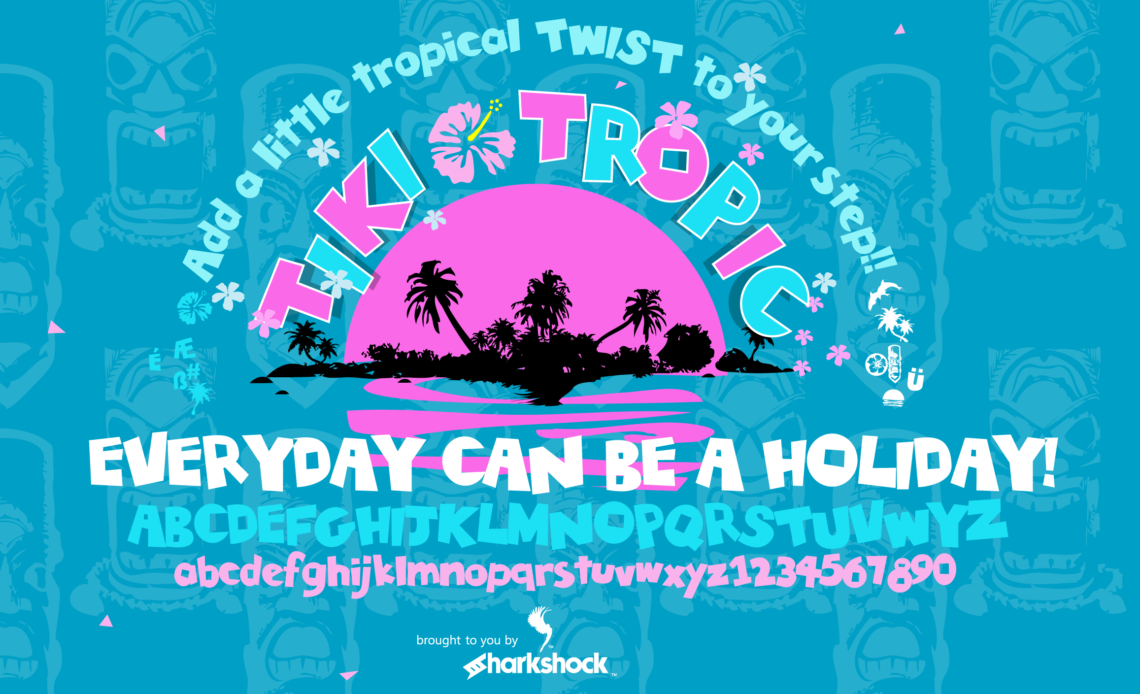
Venture into a realm of tropical bliss with Tiki Tropic Font, an enchanting journey through paradise. Immerse yourself in the sun-kissed beaches of Hawaii, the exotic allure of Thailand, or the vibrant beauty of Costa Rica, all captured within this remarkable typeface.
Designed to outshine the ordinary, Tiki Tropic radiates with irregular strokes and captivating graphics, evoking a sense of playfulness and adventure. Let your imagination bask in the warmth of island drinks and sandy beaches, where tranquility and exuberance harmoniously coexist.
Whether you seek to enchant a flyer, ignite creativity in a logo, or add a splash of tropical charm to your designs, Tiki Tropic is your gateway to paradise. Its versatility extends from playful invitations to captivating social media posts, ensuring your message leaves an indelible mark.
Feel the ocean breeze caressing your digital canvas as you adorn your projects with vibrant dolphins leaping through crystal-clear waters, graceful palm trees swaying in the rhythm of the wind, and enigmatic Tiki masks whispering tales of ancient legends. Make every word a portal to a world of wonder and escape.
With its full suite of characters, including Basic Latin, numerals, punctuation, European accents, and kerning, Tiki Tropic guarantees effortless integration into your creative vision. Unleash your imagination and let the tropics ignite your designs.